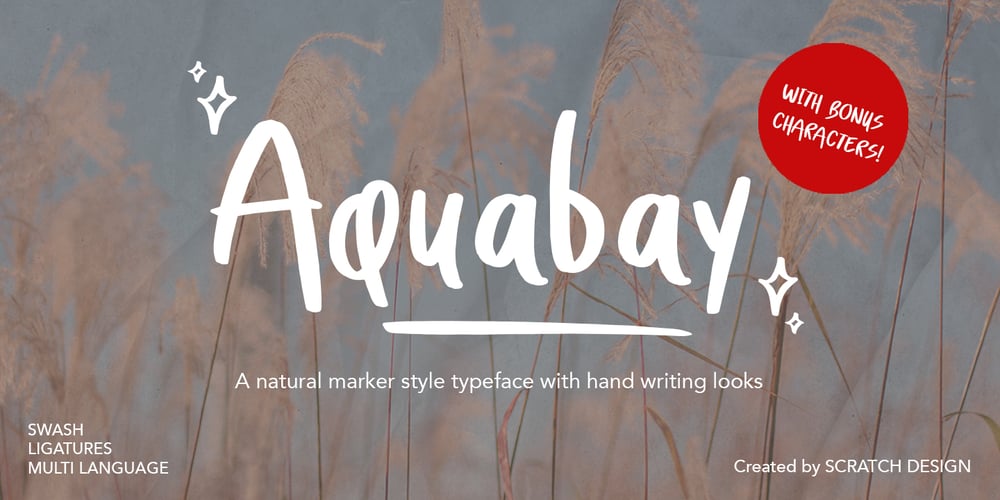
Aquabay Font Family was designed by Gitayogi Irhandi and published by Scratch Design. Aquabay contains 1 styles and family package options. Aquabay is a natural handwritten font that has cute spirit. This font comes with upper and lowercase Basic Characters, Numbers, Marks and Punctuation. As a feature you have also the standard Ligatures and Swashes. Aquabay has an authentic shape like typical handwritten so this font is perfect to apply to the casual and cute design. This font will be perfect for posters, branding, name cards, website, books, comics, presentations, or packaging designs.What are you waiting for? Download now Aquabay font and make your design artwork more wonderful!Thank you for checking and visiting our store, and feel free to drop me a message if you had any questions! Visit our Instagram ๐ www.instagram.com/scratchdesignbali